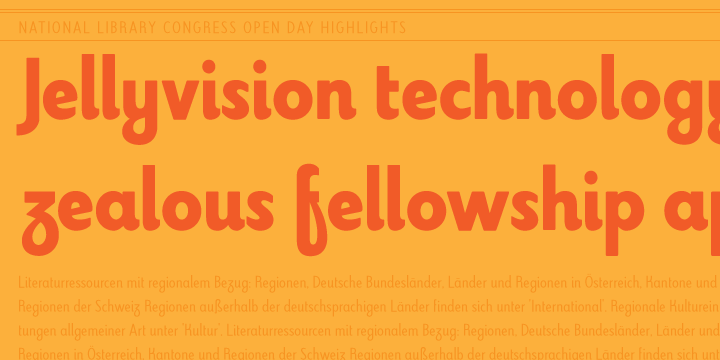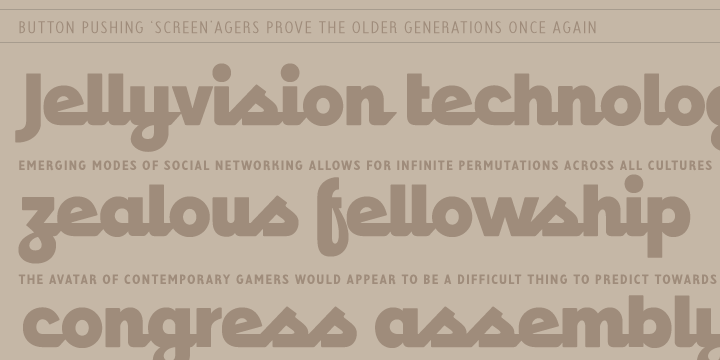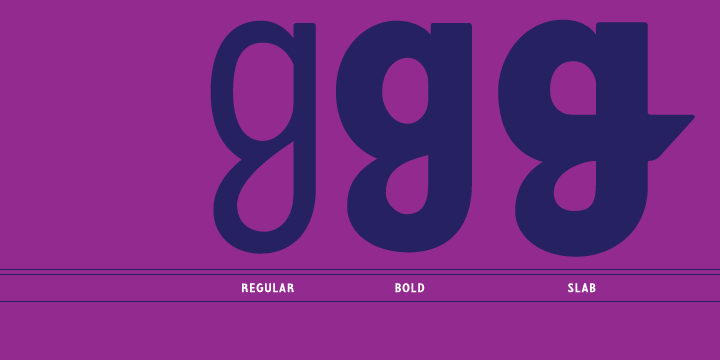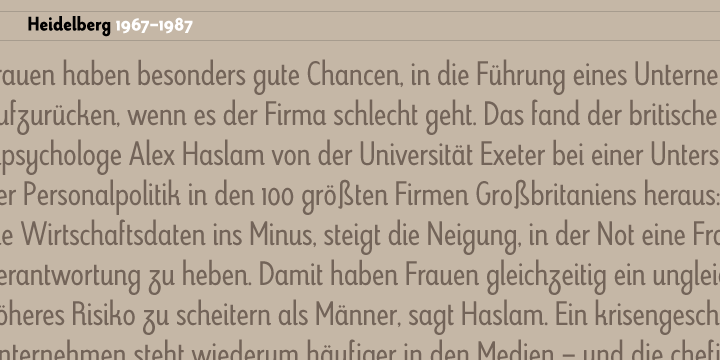
Kevlar Font Family
Kevlar was initially inspired by an obscure logo discovered in a 1960s radio-fan magazine. Of immediate interest was that the upper half of the typeface appeared to be a sans while the lower half appeared as a curious blend of a slab serif imbued with a script-like quality.